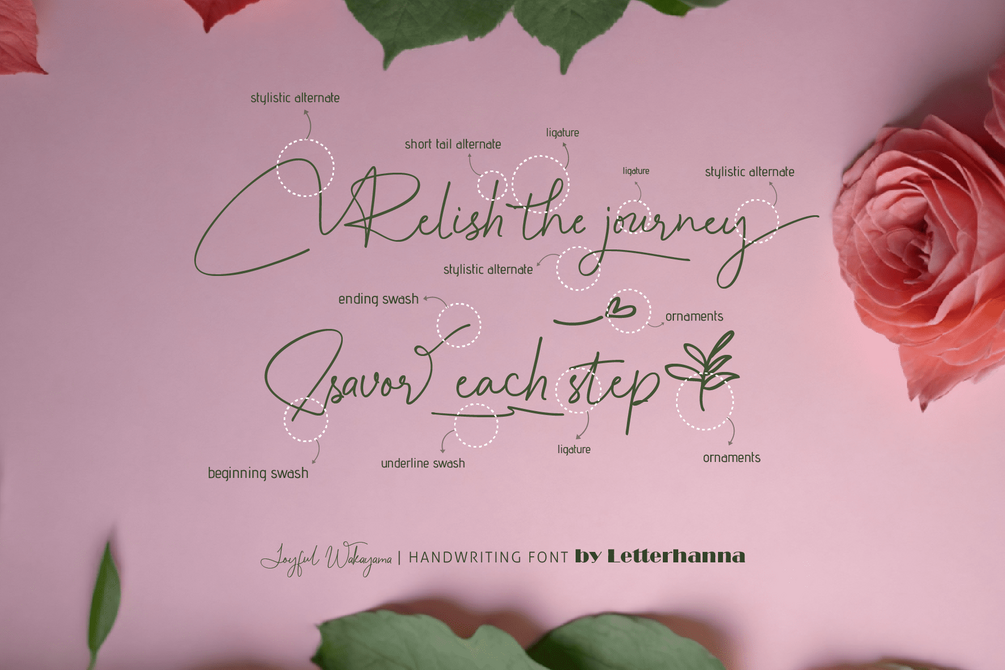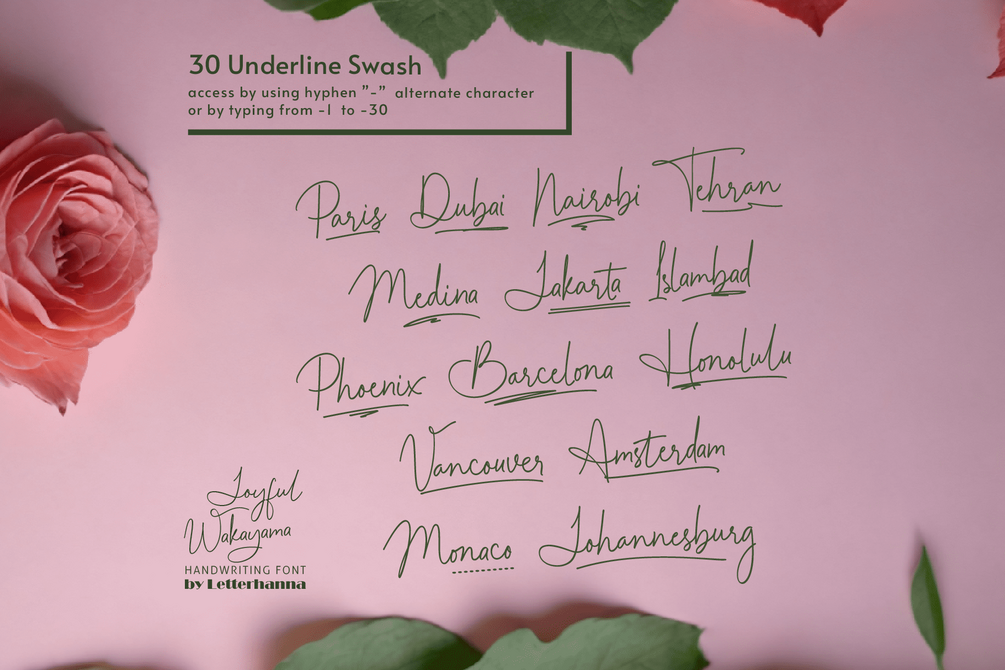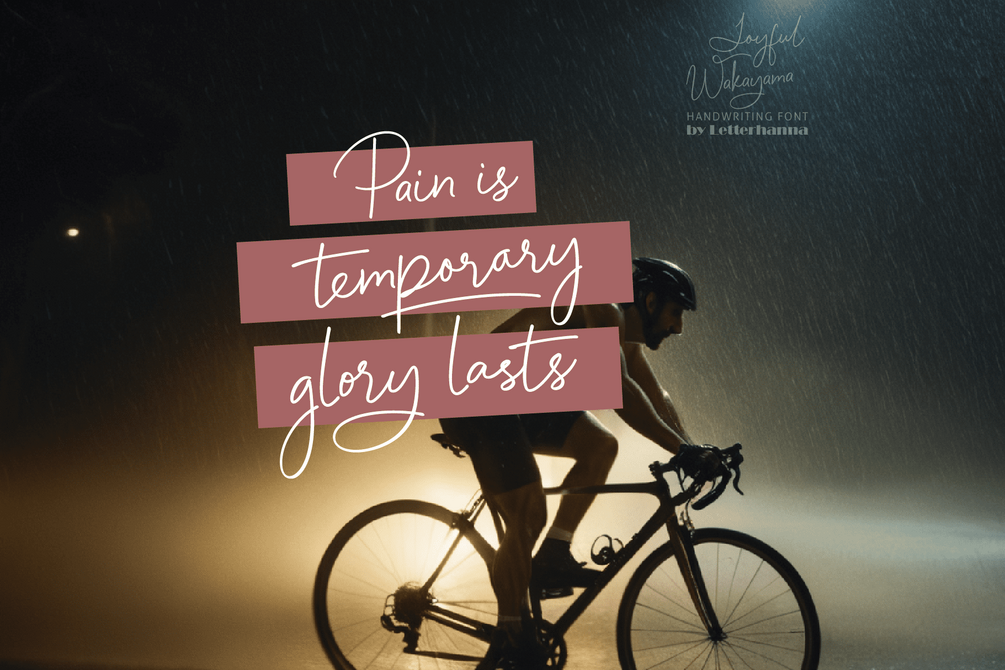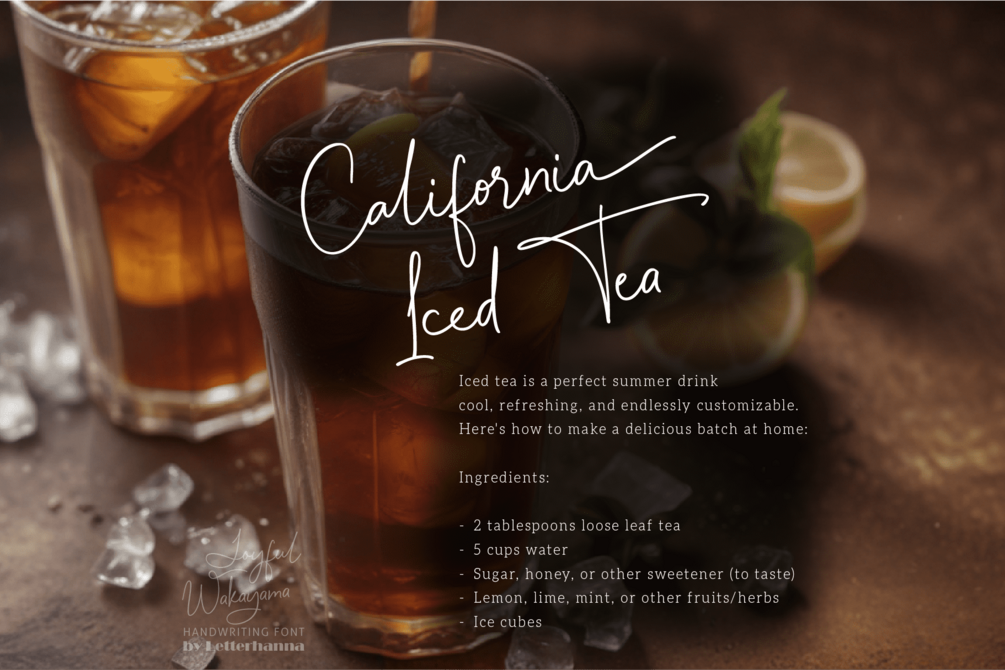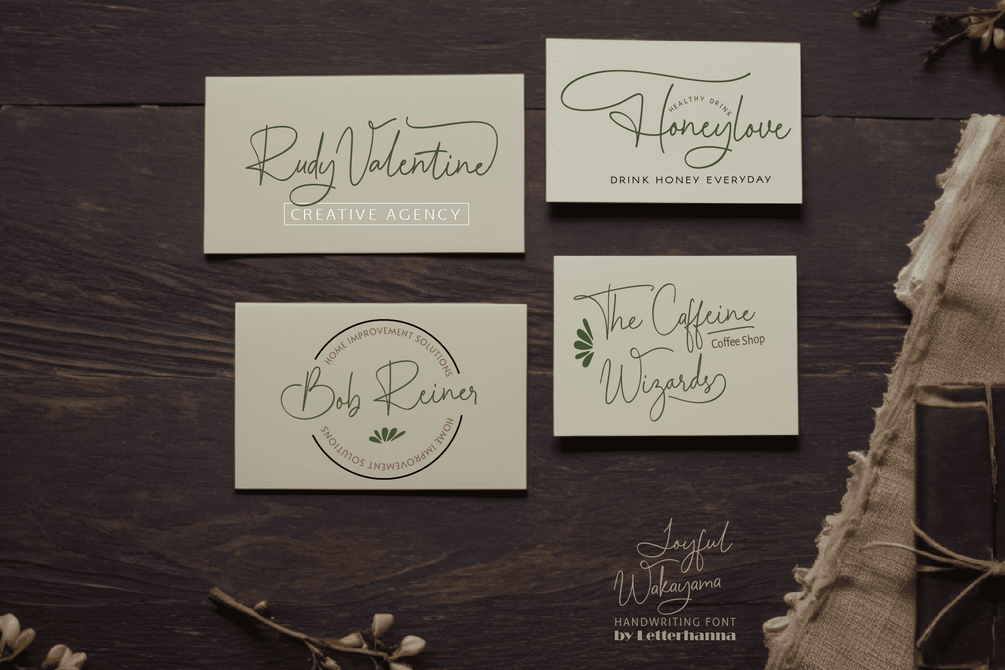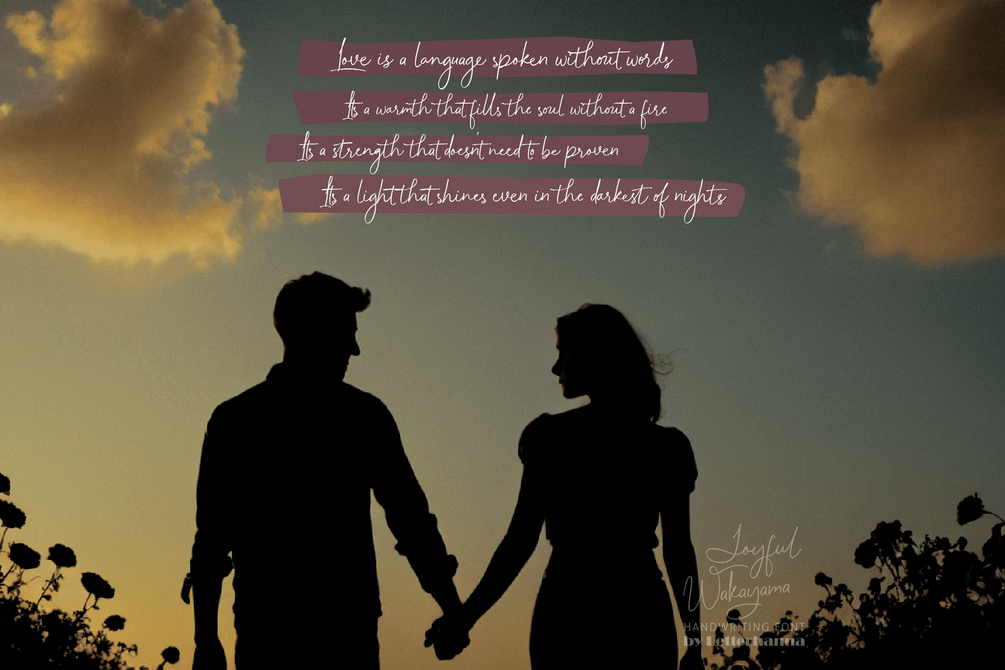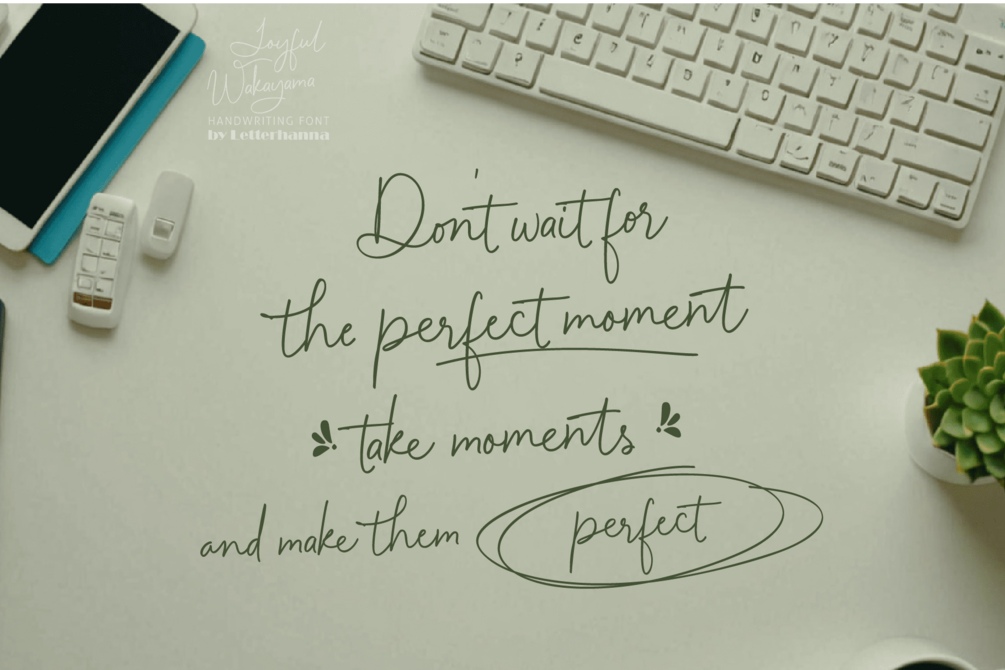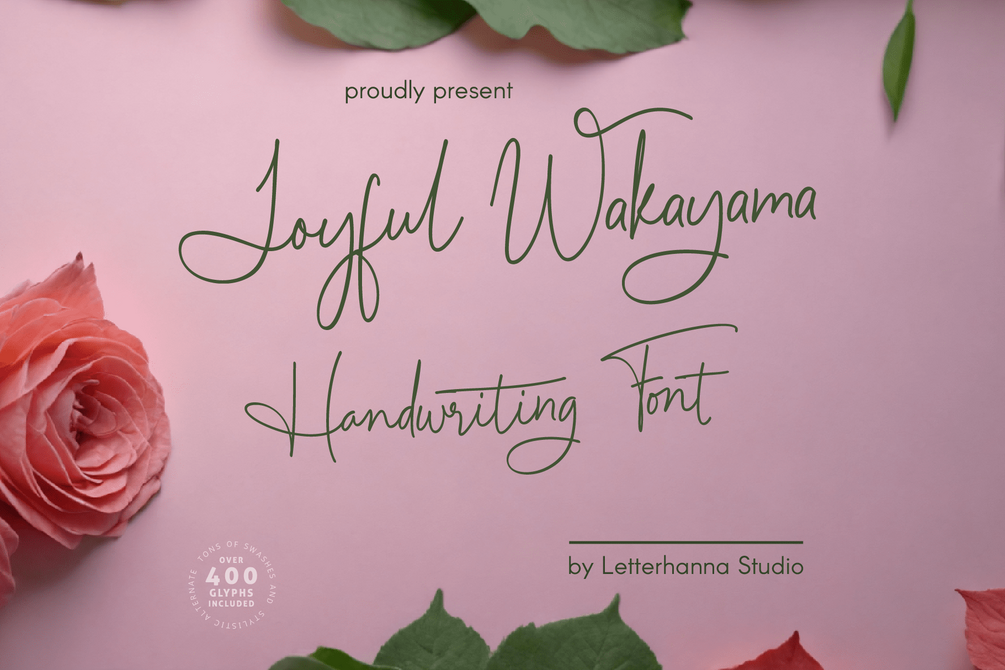
Joyful Wakayama Free
Unleash your inner wanderlust with "Joyful Wakayama," a brand new handwriting script font that captures vibrant spirit! This playful typeface dances across the page with its whimsical curves and delightful flourishes. Packed with a treasure trove of stylistic alternates, swashes, and ligatures, Joyful Wakayama allows you to express your creativity and add a touch of charm to any project.
From heartfelt greetings to playful invitations, Joyful Wakayama is perfect for injecting a dose of happiness into your designs. Let your imagination blossom and create truly unique pieces that radiate joy. Dive into the world of "Joyful Wakayama" and embark on a delightful design adventure!
Accessing Stylistic Alternates
Stylistic alternates can be accessed by typing a plus symbol "+" in front of the original letter. For example, type "+a" to get the stylistic alternate of the letter a.
- Stylistic alternates